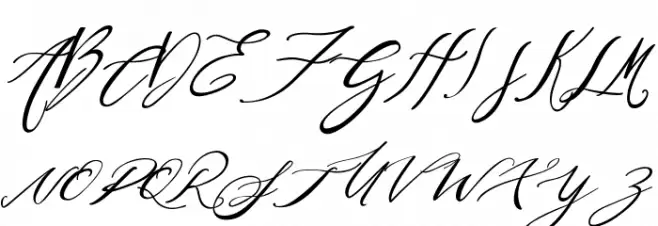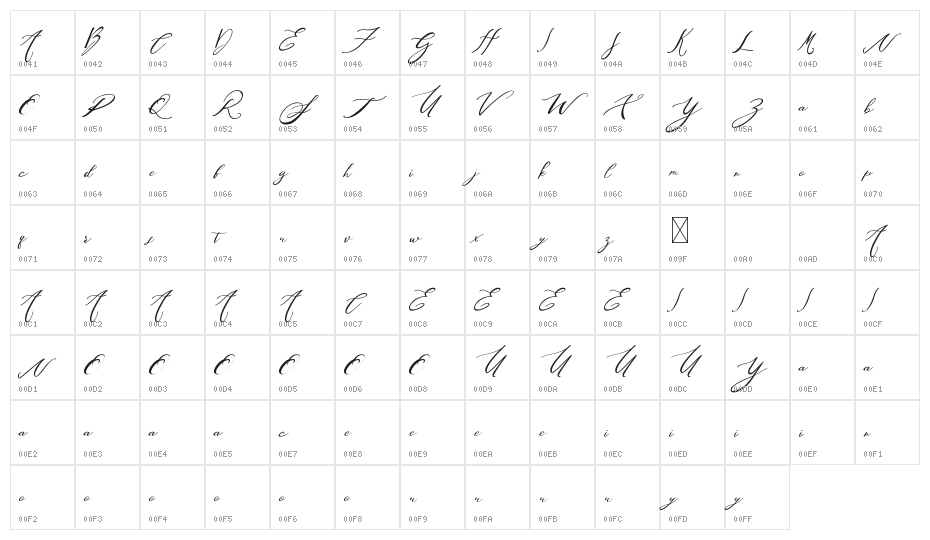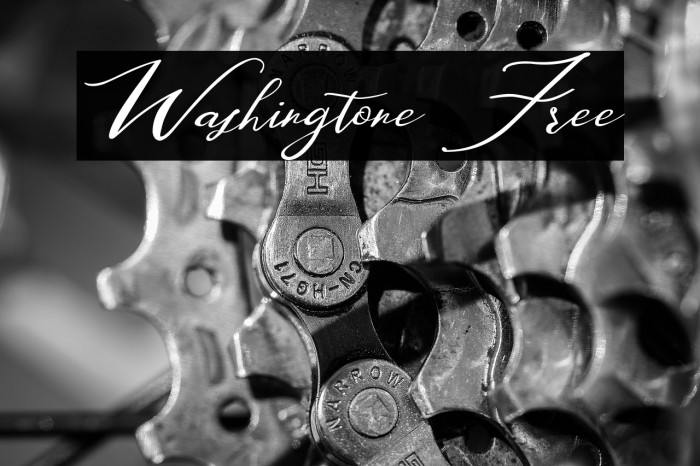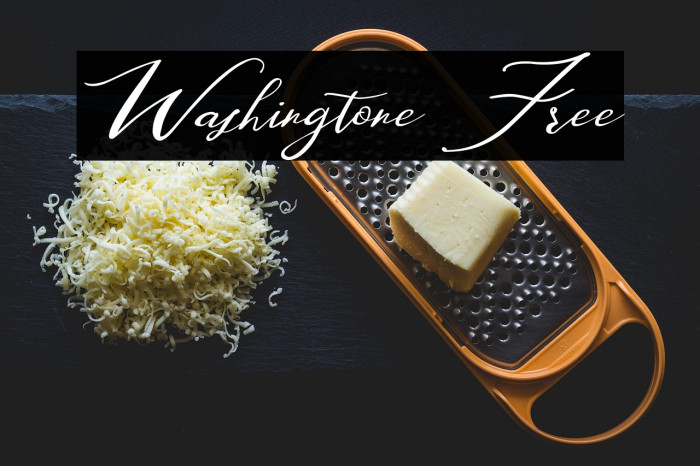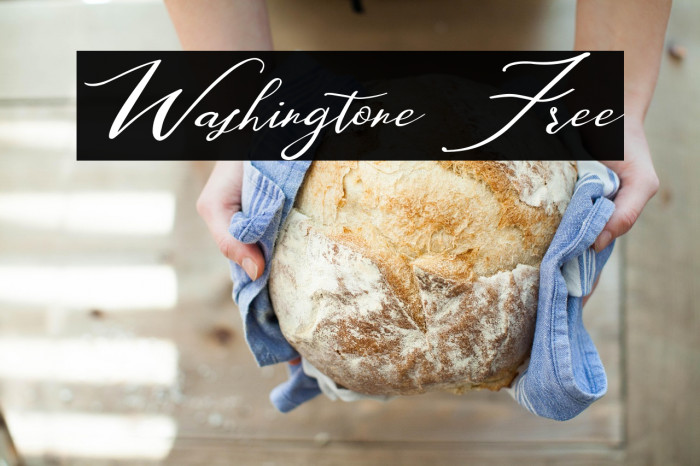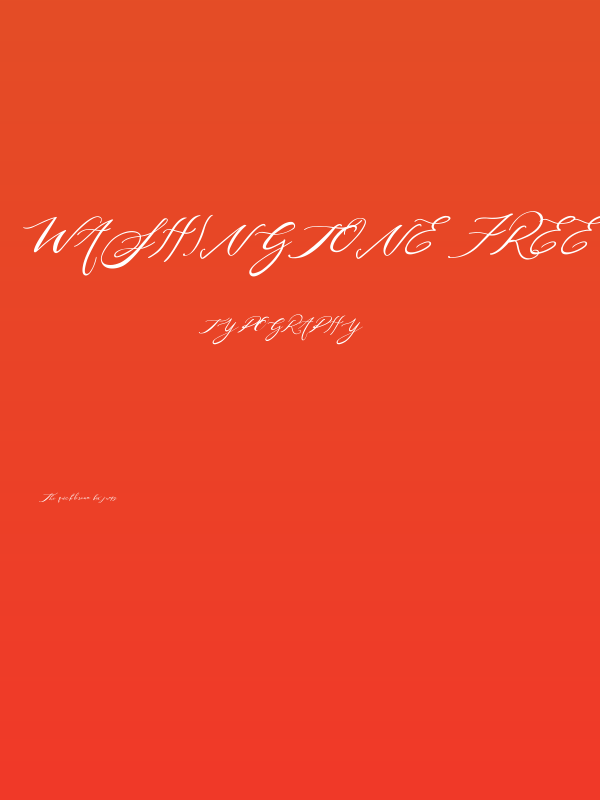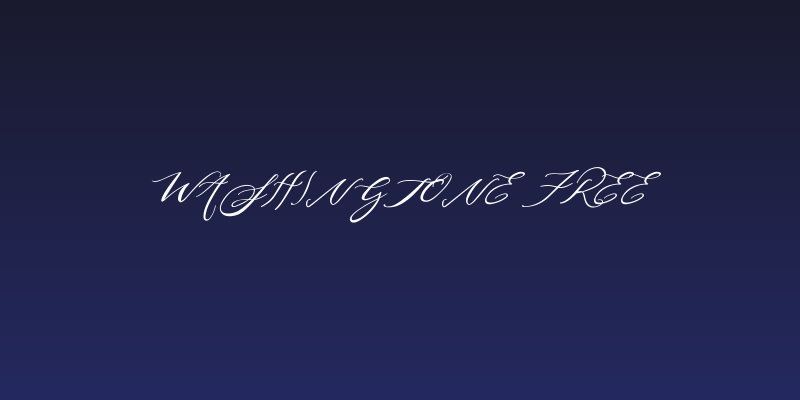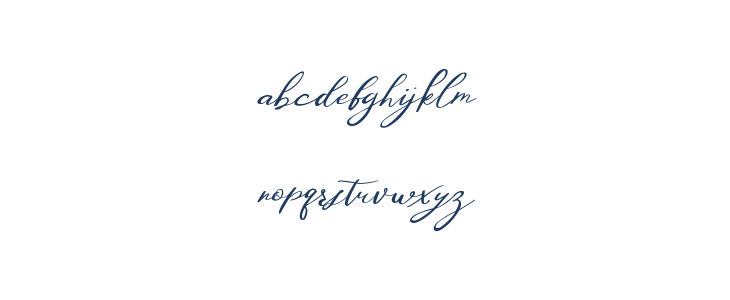
Washingtone Free Font
Washingtone Free Description
This font exudes elegance and sophistication with its flowing, cursive style. The letters are intricately designed with graceful loops and swirls, giving it a handwritten appearance. The uppercase characters are particularly ornate, featuring extended strokes and flourishes that add a touch of drama. The lowercase letters maintain a consistent style, complementing the uppercase with their smooth curves and delicate connections. This font is perfect for creating a sense of luxury and refinement, making it ideal for formal invitations, branding, and decorative purposes. Its artistic flair and attention to detail make it stand out as a statement font.
| Use Case | Invitations, Branding, Decorative |
| Proposed Projects | Ideal for wedding invitations, luxury branding, and decorative headings. |